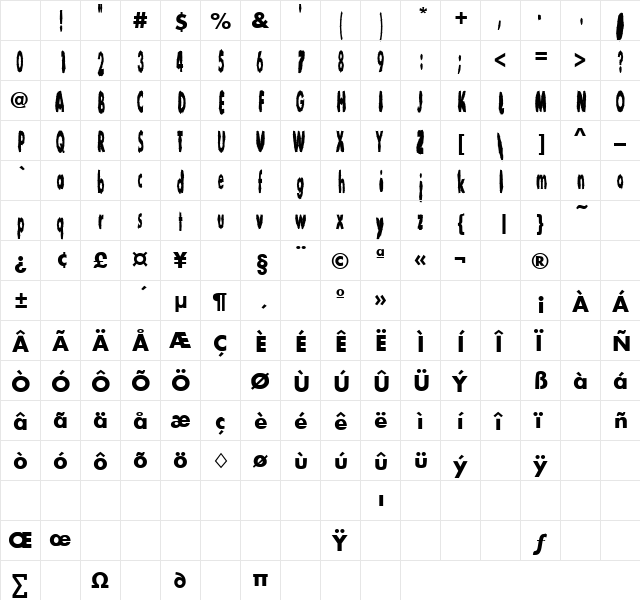
Complete Young American 1 Regular glyph index. Displaying only characters natively supported by Young American 1 Regular font.
Young American 1 is a composed and adaptable typeface that performs quietly and consistently across a wide range of design contexts.